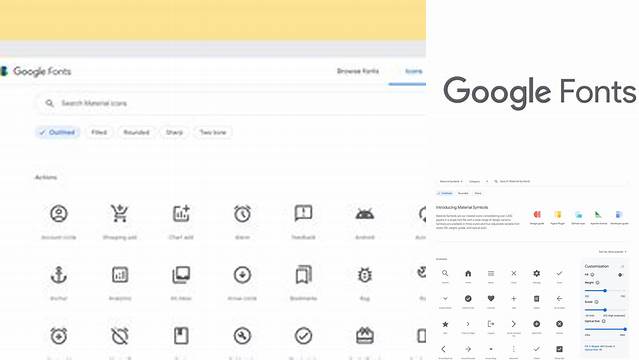
Google Fonts: Material Symbols Via CSS & Googleapis
Hey guys! Ever wondered how to jazz up your website with those slick Material Symbols from Google? Well, you've come to the right place. We're diving deep into how to use Google Fonts, specifically focusing on the href fonts googleapis css2 family material symbols outlined method. Buckle up; it's going to be a fun ride!
1. Understanding Google Fonts and CSS
Let's start with the basics. Google Fonts is a treasure trove of free, open-source fonts that you can easily embed into your website. CSS (Cascading Style Sheets) is the language we use to style our HTML elements. When you see href fonts googleapis, it's essentially a link to Google's servers where these fonts are hosted. The css2 part refers to the version of the CSS API used to deliver the fonts. Understanding this foundation is crucial before we delve into the specifics of Material Symbols.
Using Google Fonts via CSS is a straightforward process. First, you need to find the font you want on the Google Fonts website. Once you've selected it, Google provides a snippet of HTML code that you can paste into your <head> section. This code usually looks something like <link rel="stylesheet" href="https://fonts.googleapis.com/css2?family=YourFont&display=swap">. The href attribute points to the Google Fonts server, telling the browser to fetch the specified font. The family parameter specifies the name of the font you're using. The display=swap part is a performance optimization that tells the browser to display text using a system font until the custom font is loaded. This prevents the dreaded 'invisible text' issue, where users see a blank space while waiting for the font to load. This is a neat trick to enhance user experience.
Once the font is linked in your HTML, you can use it in your CSS rules. For example, if you've linked the 'Roboto' font, you can apply it to your paragraphs like this: p { font-family: 'Roboto', sans-serif; }. The sans-serif part is a fallback in case the 'Roboto' font fails to load. By understanding this basic mechanism, you can easily integrate a wide variety of fonts into your web projects, making your site more visually appealing and engaging. Remember to choose fonts that complement your website's design and improve readability. Experiment with different font combinations to find the perfect aesthetic balance. Keep in mind that too many different fonts can make your site look cluttered and unprofessional, so it's best to stick to a maximum of two or three fonts for a cohesive look. And always test your font choices on different devices and browsers to ensure they render correctly and maintain their intended appearance.
2. Introduction to Material Symbols Outlined
Material Symbols are Google's evolved icon set, offering a consistent visual language across platforms. The outlined variant refers to the style of these symbols, which have a hollow, line-based appearance. They're perfect for adding visual cues to your website without being too overwhelming. The href fonts googleapis css2 family material symbols outlined method is how we bring these crisp icons to life in our projects.
Material Symbols Outlined are a fantastic addition to any modern web design. They offer a clean and minimalist look that can enhance the user interface and improve the overall user experience. Unlike traditional icon fonts or image-based icons, Material Symbols are designed to be scalable and adaptable to different screen sizes and resolutions. This means they will look sharp and crisp on both desktop computers and mobile devices. Furthermore, because they are vector-based, they can be easily customized with CSS to match your website's color scheme and branding. You can change their size, color, and even add subtle animations to make them more interactive. This level of flexibility is one of the key advantages of using Material Symbols Outlined over other icon options.
Integrating Material Symbols Outlined into your project is also relatively straightforward, thanks to Google Fonts. By including the appropriate <link> tag in your HTML, you can access the entire library of symbols and use them just like any other font. This simplifies the process of managing and updating icons, as you don't need to download and host individual image files. Instead, you can rely on Google's CDN to deliver the icons efficiently and reliably. Additionally, the use of CSS allows you to control the appearance of the symbols with precision, ensuring they seamlessly integrate with your website's design. Whether you're creating a simple website or a complex web application, Material Symbols Outlined can help you add a touch of elegance and professionalism to your project. They are a versatile and powerful tool that can enhance the visual appeal and usability of your website. Embrace them, and you'll be amazed at the difference they can make.
3. Breaking Down the href Attribute
The href attribute in HTML specifies the URL of the resource being linked. In our case, href fonts googleapis css2 family material symbols outlined means we're telling the browser to fetch the CSS file containing the Material Symbols Outlined from Google's servers. It's like giving the browser a specific address to find the icons.
The href attribute is a fundamental part of HTML and plays a crucial role in linking various resources to your web page. When it comes to Google Fonts, the href attribute is used to specify the URL of the CSS file that contains the font definitions. This CSS file is hosted on Google's servers and includes all the necessary information for the browser to download and render the specified fonts. The URL typically follows a specific format, including the base URL for Google Fonts (https://fonts.googleapis.com/css2), followed by parameters that specify the font family and any other relevant settings. Understanding the structure of this URL is essential for troubleshooting any issues that may arise when loading fonts.
The href attribute is not just a simple string; it's a carefully constructed address that tells the browser exactly where to find the font resources. The https:// part indicates that the connection is secure, ensuring that the font files are transmitted safely. The fonts.googleapis.com part specifies the domain where the fonts are hosted. The /css2 part indicates the version of the CSS API being used. Finally, the ?family= parameter is used to specify the name of the font family you want to load. For example, ?family=Roboto would load the Roboto font. By understanding each of these components, you can customize the href attribute to load different fonts, specify different font weights, and even load multiple fonts in a single request. This level of control allows you to optimize the performance of your website and ensure that your fonts are loaded efficiently. So, next time you see an href attribute linking to Google Fonts, remember that it's more than just a URL; it's a key to unlocking a world of beautiful typography.
4. Specifying the CSS2 API
The css2 part of the URL indicates that we're using the second version of Google Fonts' CSS API. This version often includes improvements in performance and features compared to older versions. It's always a good idea to use the latest version to leverage these benefits.
Another benefit of the css2 API is its improved support for modern CSS features. This includes things like variable fonts, which allow you to load a single font file that can be customized with different weights, styles, and other variations. This can significantly reduce the number of font files you need to load, further improving performance. Additionally, the css2 API supports the font-display property, which allows you to control how the browser handles font loading. You can use this property to specify whether the browser should display a fallback font while the custom font is loading, or whether it should wait until the custom font is fully loaded before displaying any text. This gives you more control over the user experience and helps prevent the dreaded